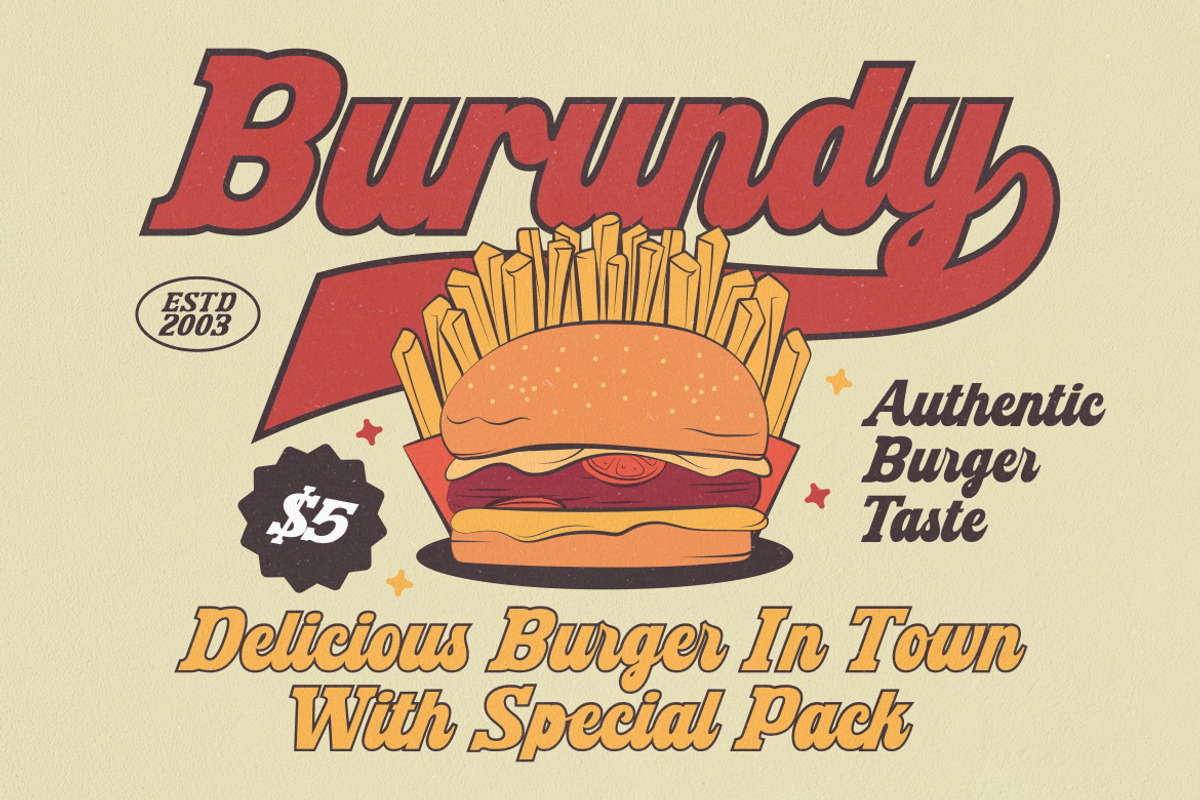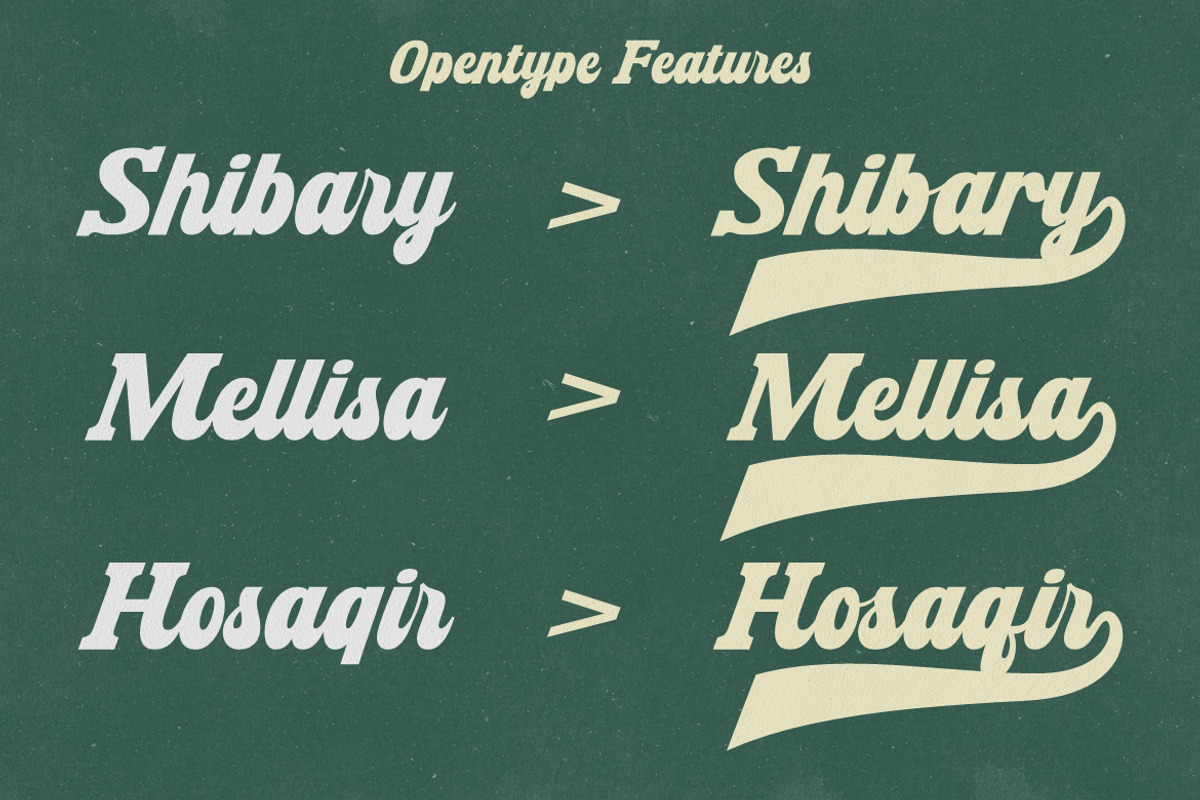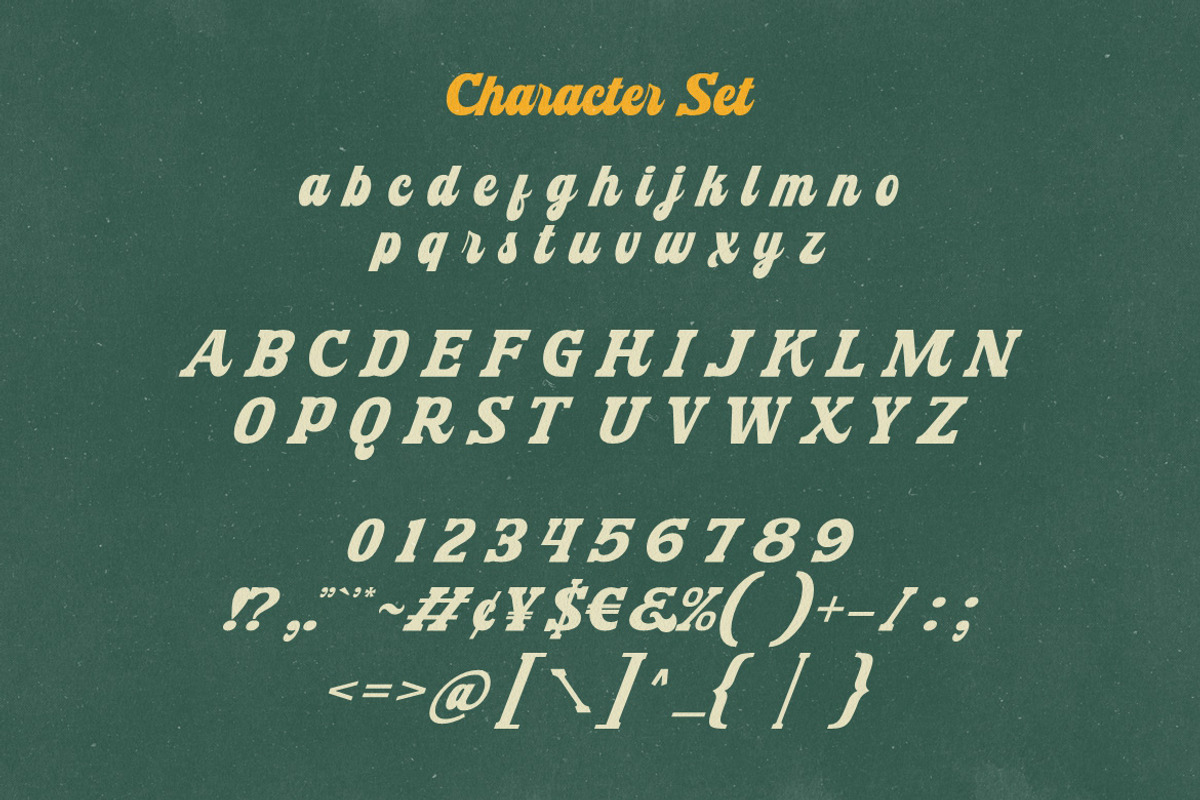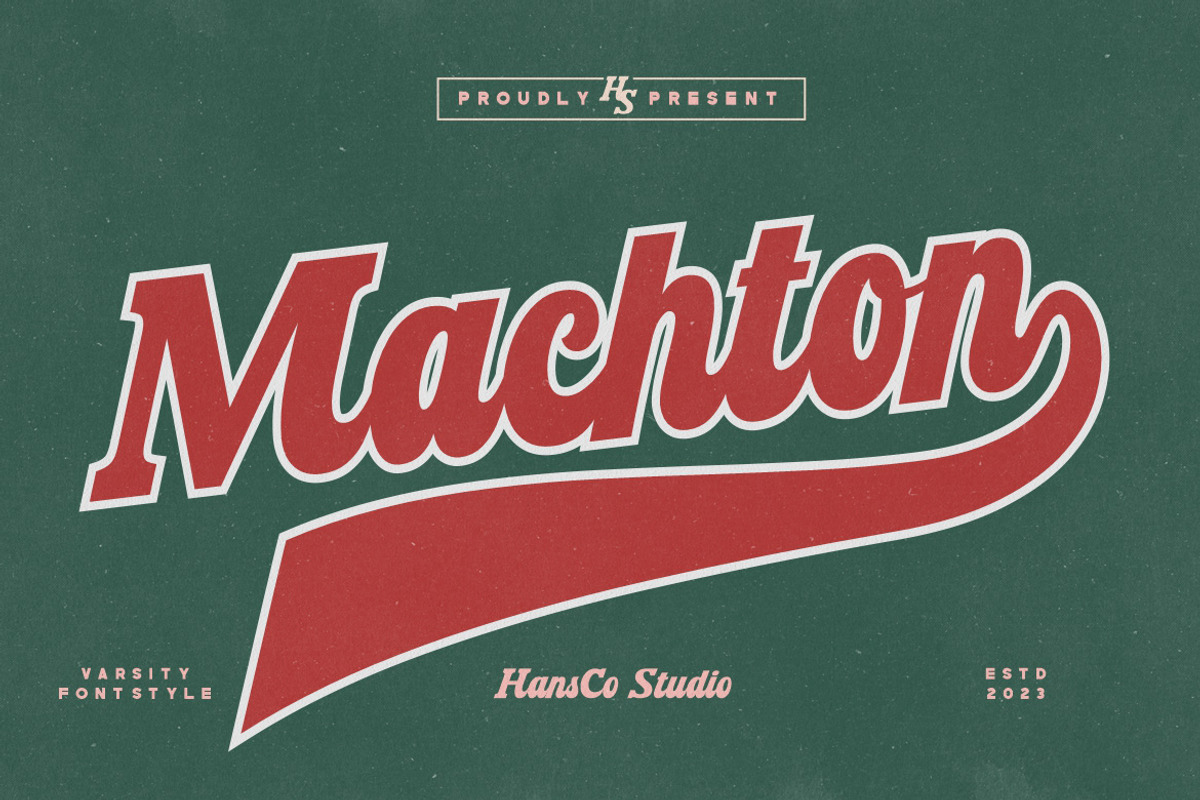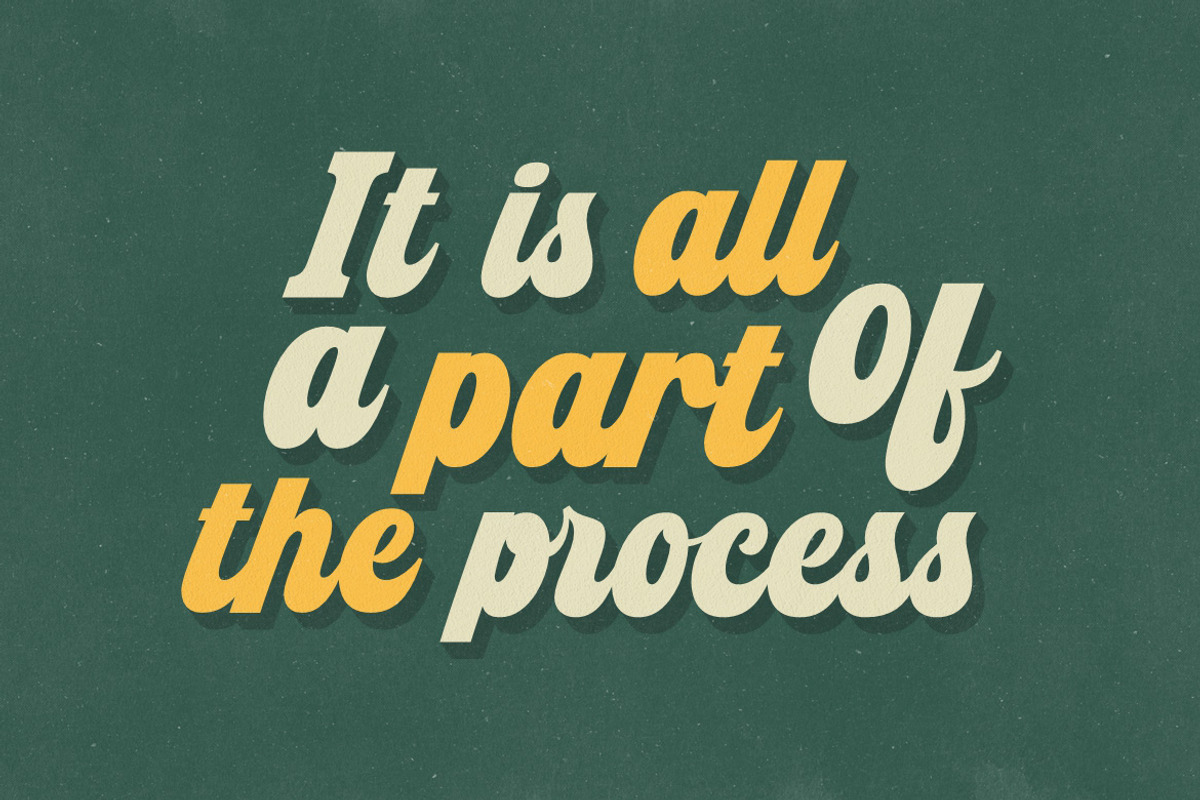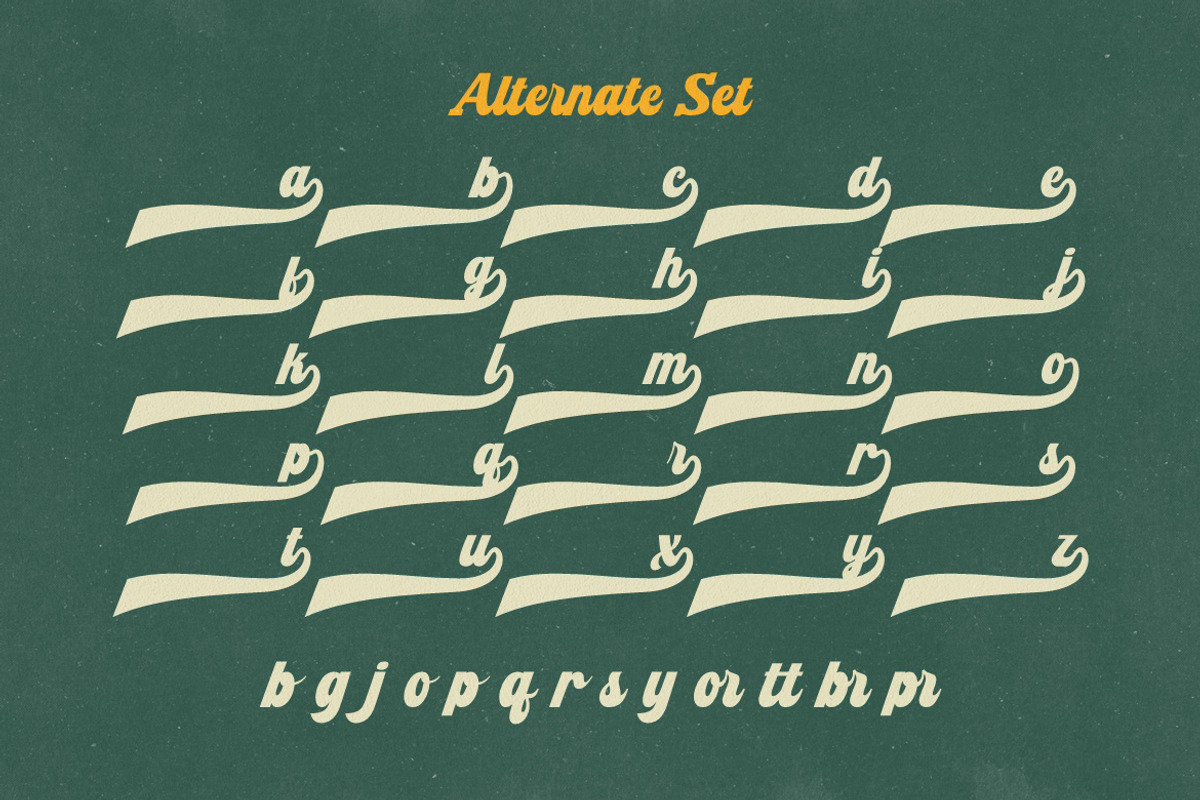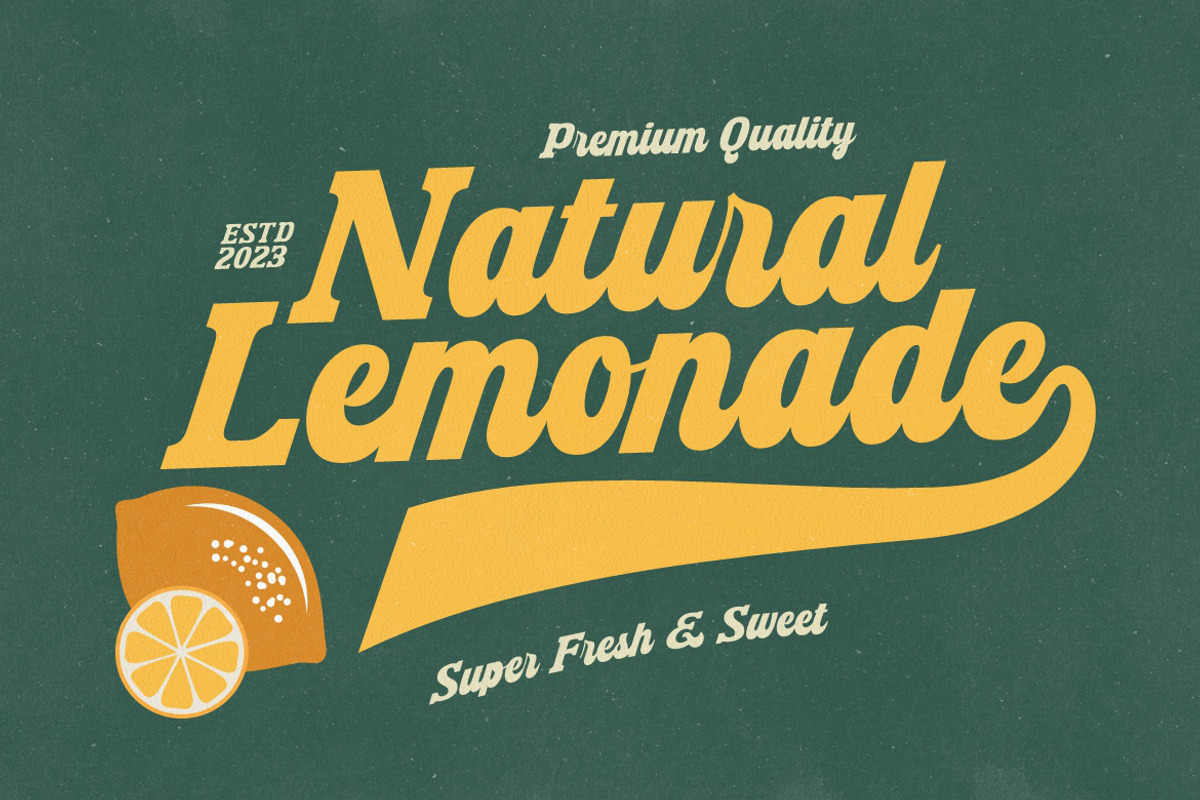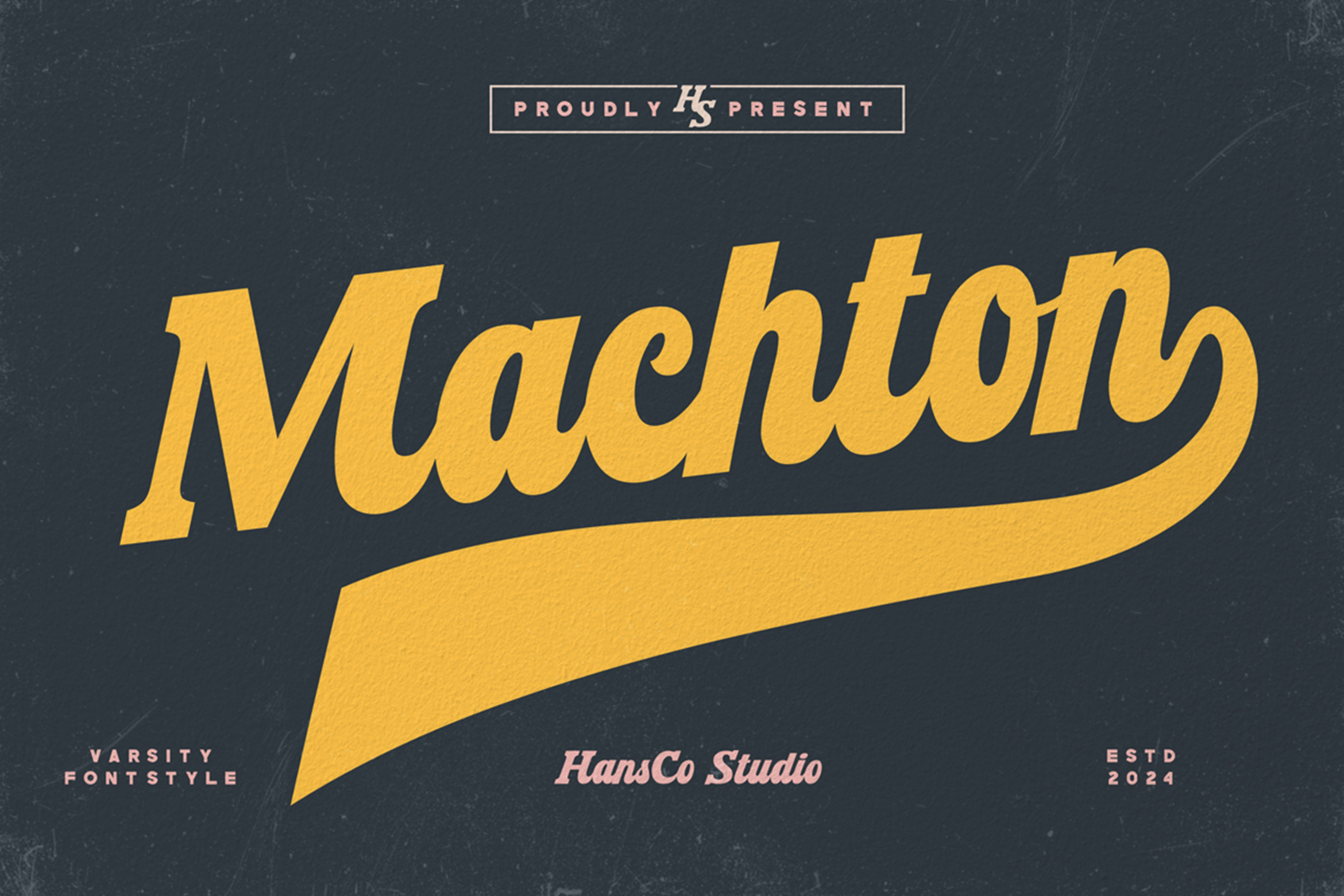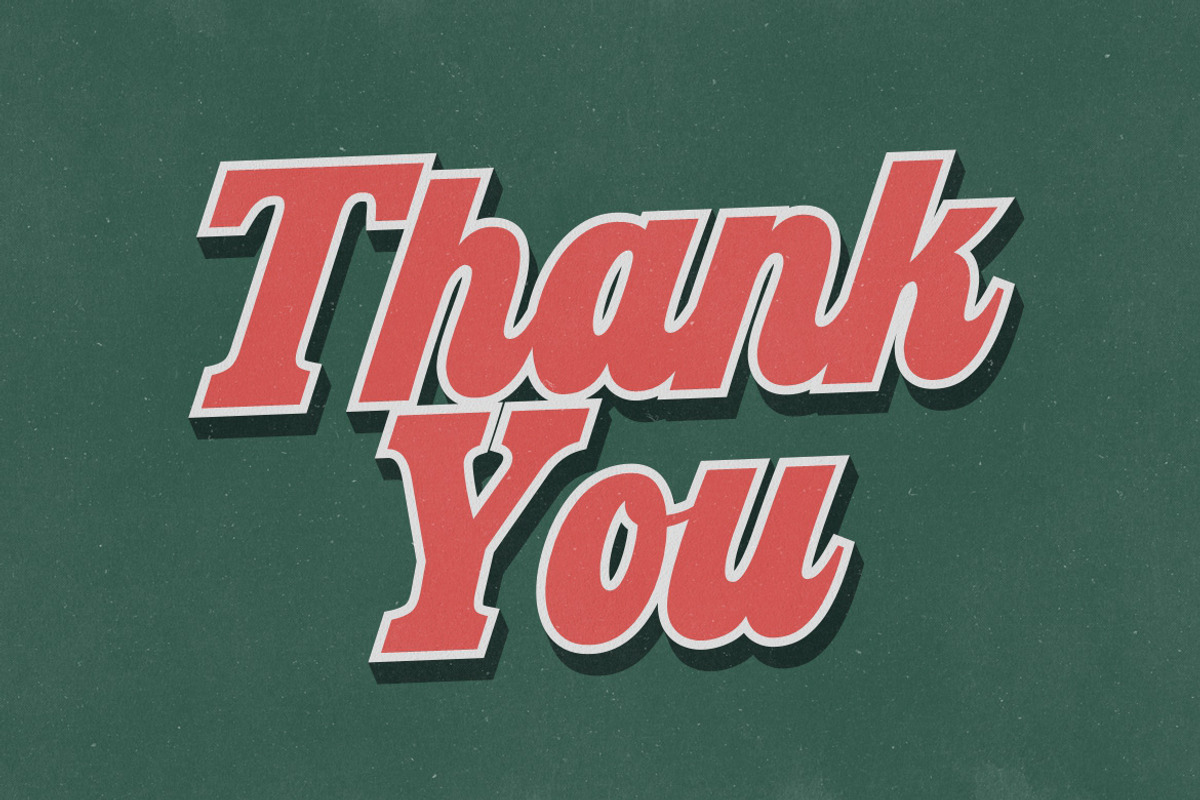
Machton - Varsity Font
Machton Font is a Varsity / Jersey font style. Elevate your design projects to new heights with our premium digital fonts tailored for Canva and Cricut users. Whether you’re designing for personal pleasure or pursuing a professional endeavor, our diverse selection of high-quality fonts will help you bring your creative visions to life. Don’t settle for ordinary fonts when you can make your designs extraordinary. Unlock your design potential and grab our digital font product today. With our fonts, you’re not just designing; you’re crafting experiences, sparking emotions, and leaving a lasting impact. Get started and let your creativity flow like never before!
- Alternate Character